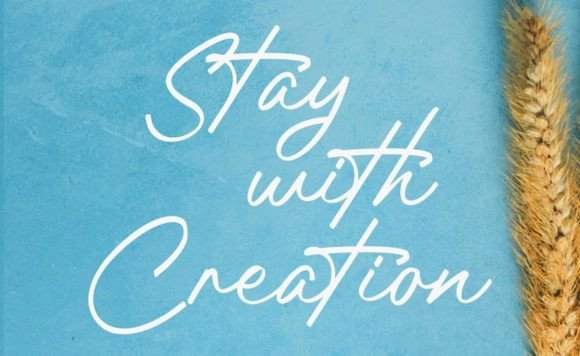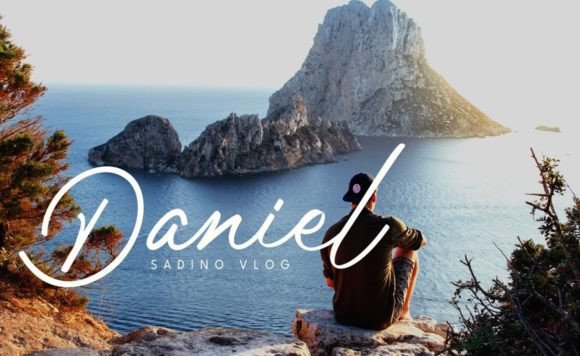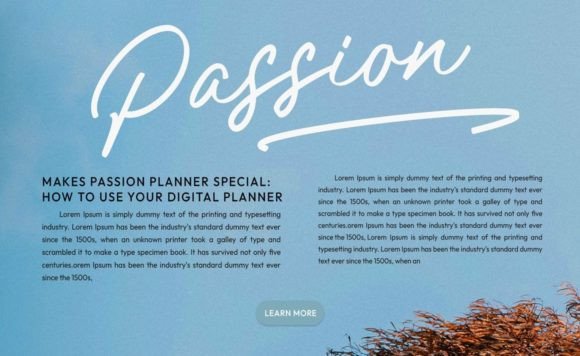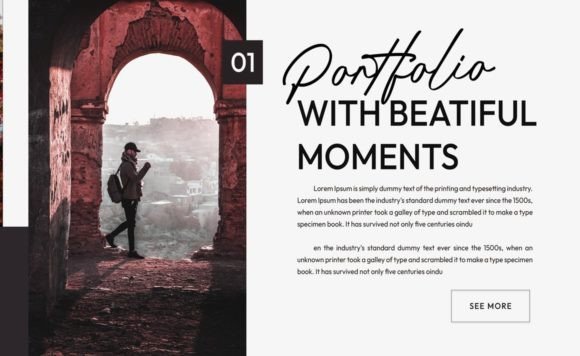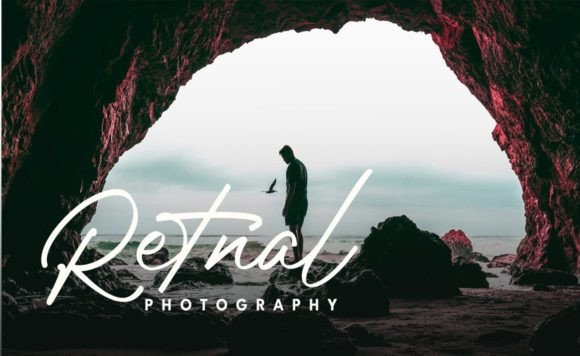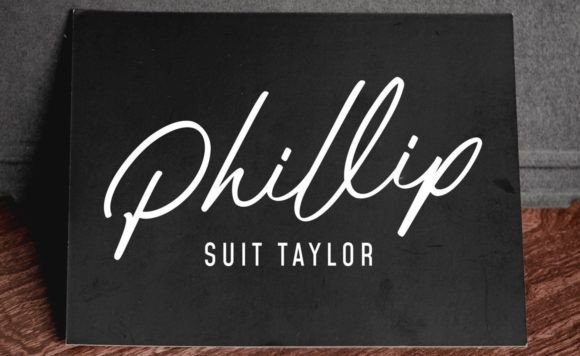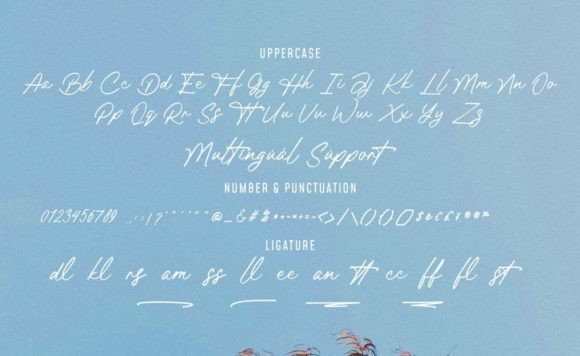
Tofu Font
About Tofu Font
“Tofu” is a handwritten font that embodies a sleek, modern, and stylish design. Its contemporary and chic appearance makes it a perfect choice for a variety of design applications. Whether you’re creating logos, branding materials, products, websites, or any other creative project, “Tofu” adds a touch of sophistication and allure, ensuring your designs capture the attention of your audience.
The font’s sleek and modern style gives your text a polished and elegant look. Its handwritten quality adds a personal touch, making your content feel authentic and engaging. “Tofu” seamlessly integrates into different design contexts, enhancing the overall visual appeal of your projects.
Incorporating “Tofu” into your designs empowers you to create visually captivating and attention-grabbing visuals. Its stylish and modern design elements make it a valuable asset in your creative toolkit. Whether you’re working on logos, brands, products, websites, or other creative endeavors, “Tofu” elevates the aesthetic, ensuring your creations stand out and leave a lasting impression on your audience.